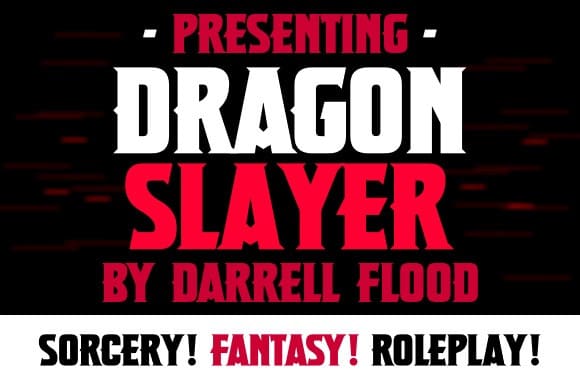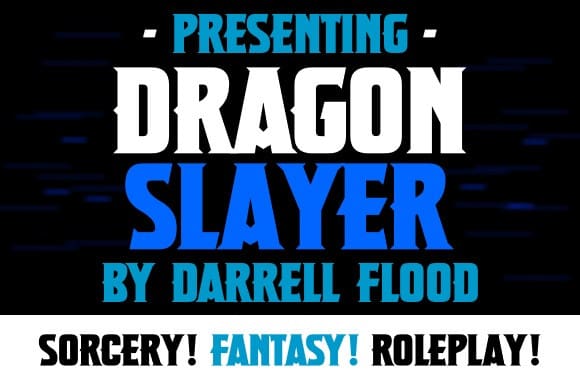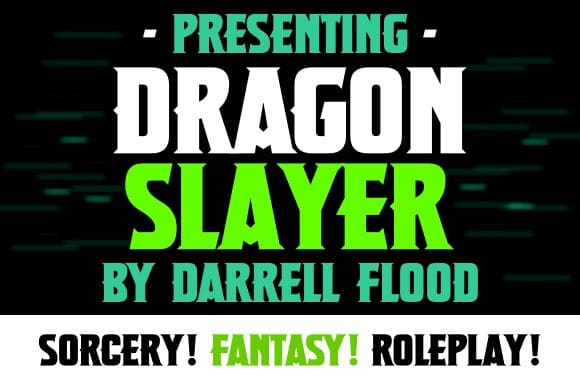
Dragon Slayer Font
Dragon Slayer Font a bold and striking font with sharp edges, smooth curves and angular cuts. Perfect for exploring dungeons, battling evil wizards and any fantasy themed setting!